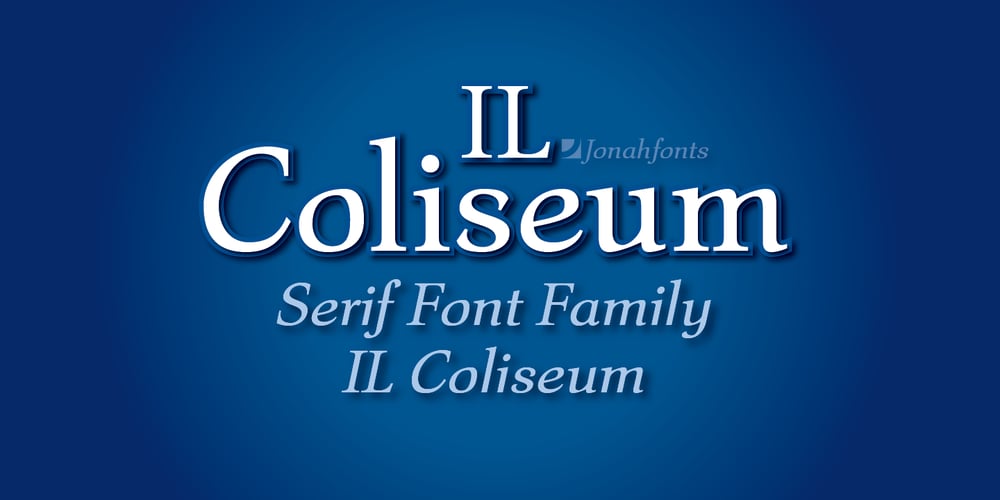
Il Coliseum Font Family was designed by John Nahmias and published by Jonahfonts. Il Coliseum contains 4 styles and family package options. A formal text font designed for legibility, suitable for documents, books and intense text requirements.